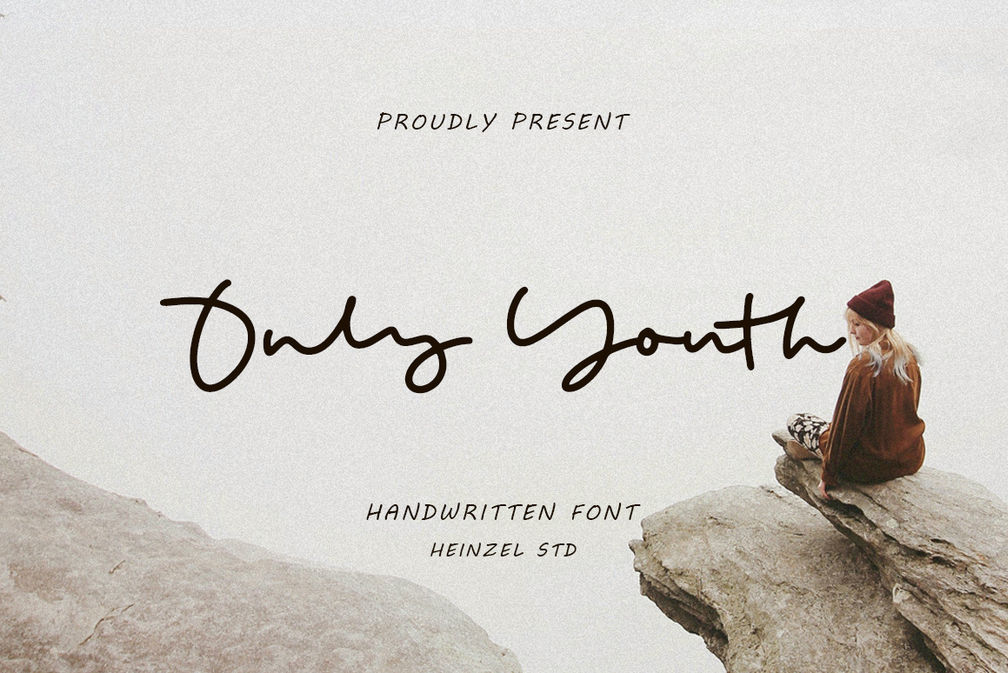
Only Youth Handwritten Font
Only Youth – Handwritten Font
Only Youth is a flowing handwritten font, described by an elegant touch, perfect for your favorite projects. It looks stunning on wedding invitations, thank you cards, quotes, greeting cards, logos, business cards and every other design which needs a handwritten touch. Fall in love with its incredibly distinct and timeless style and use it to create spectacular designs!
Only Youth Features :
- Uppercase and Lowercase
- Numerals and Punctuations
- Ligatures and Alternates
- Multilingual Support